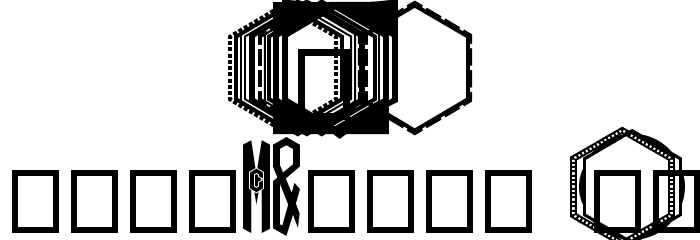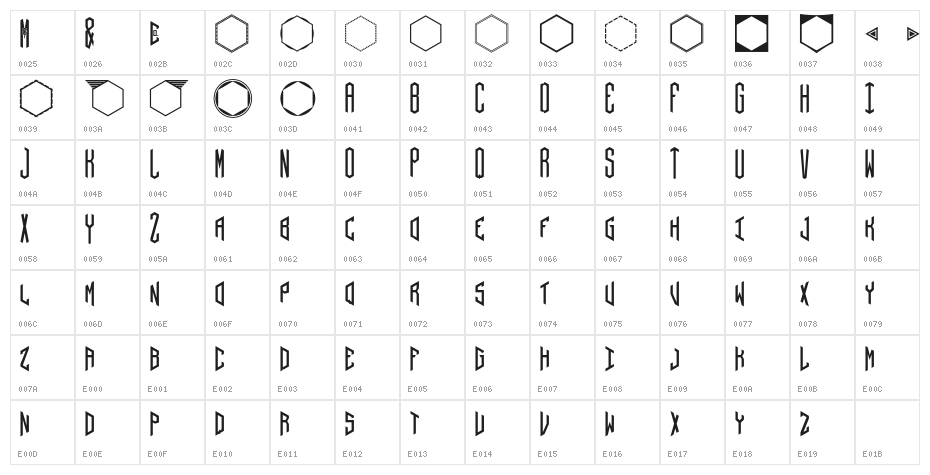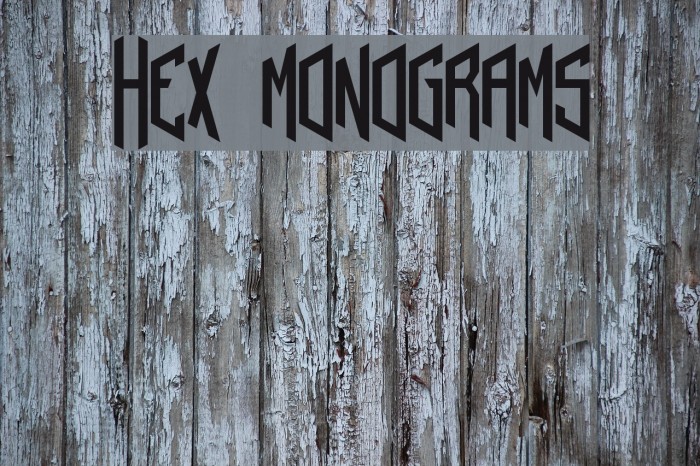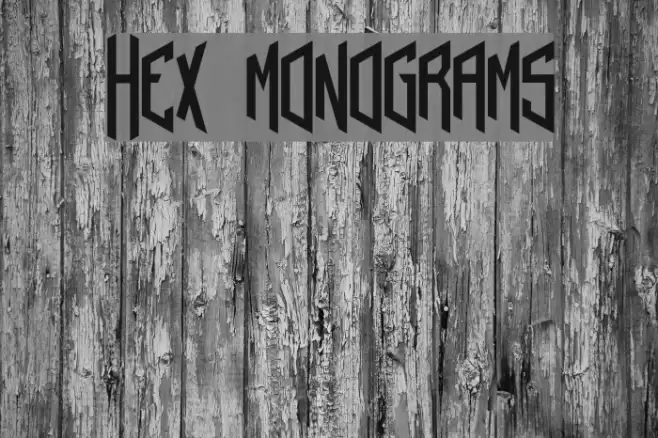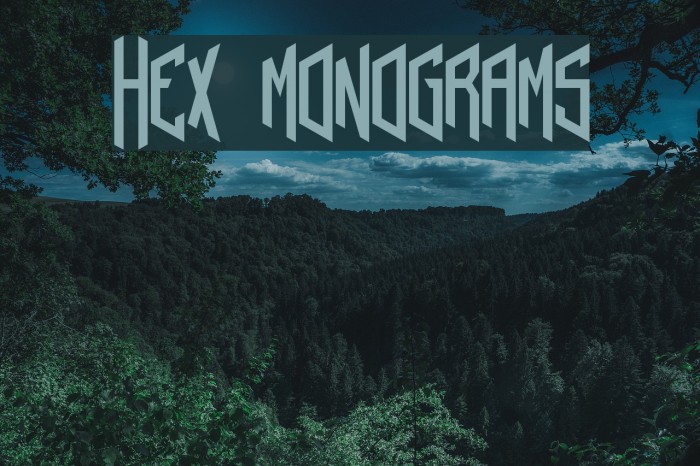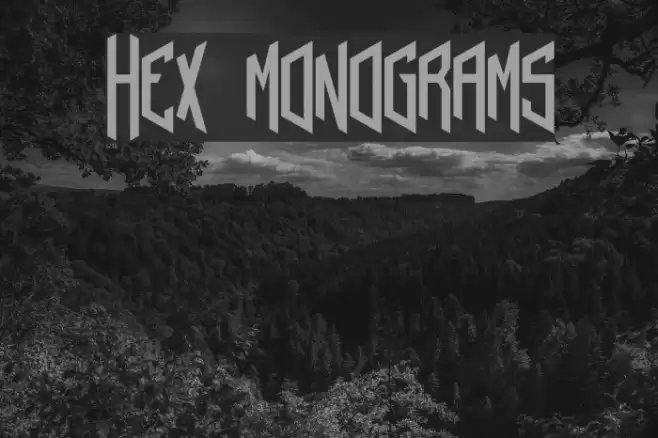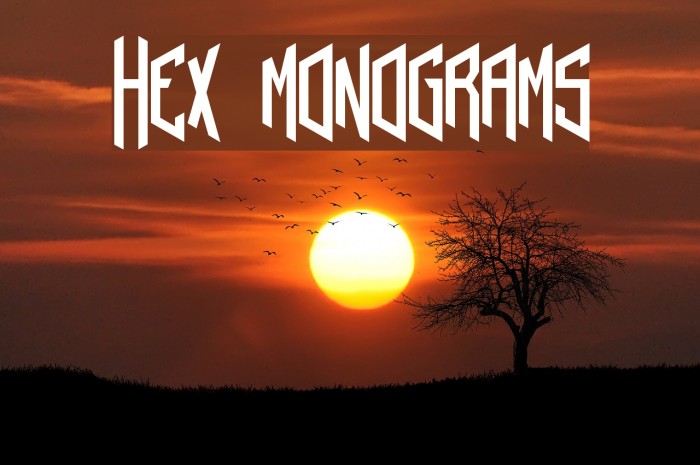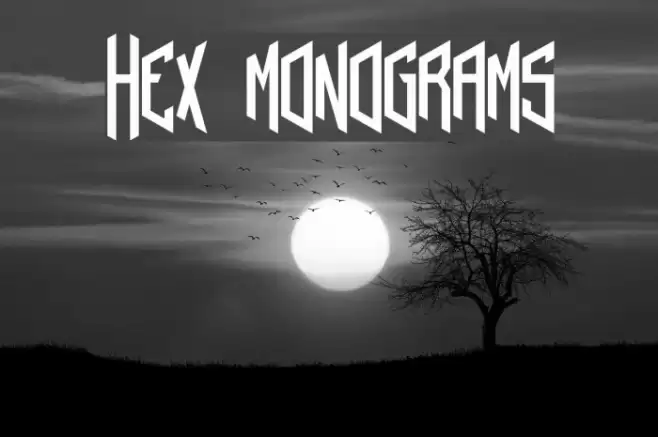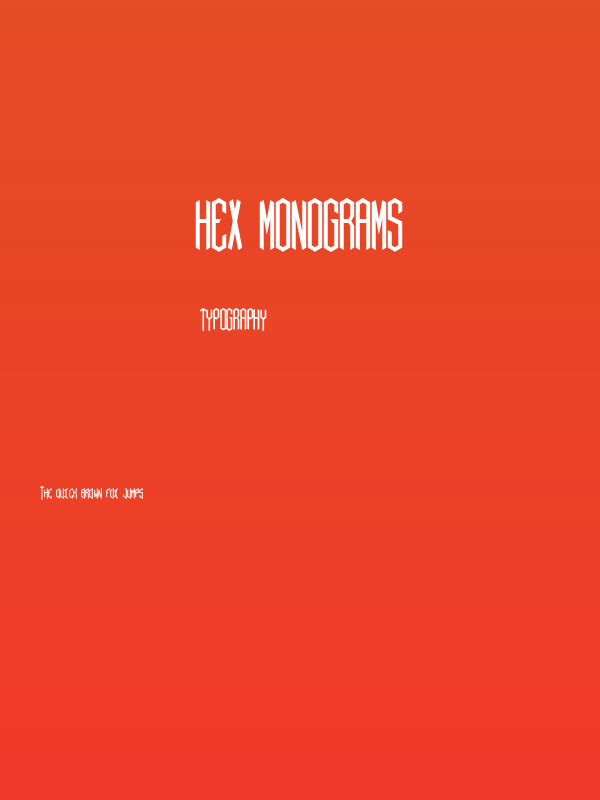
Hex monograms Font
Hex monograms Description
This font features a distinctive geometric style with sharp, angular lines and a hexagonal motif. The uppercase letters are elongated and narrow, creating a striking and modern appearance. The absence of lowercase letters and numbers suggests a focus on decorative and monogram applications. The design incorporates a unique hexagonal frame around certain letters, emphasizing its suitability for branding and logo design. The overall aesthetic is bold and eye-catching, making it ideal for projects that require a strong visual impact.
| Proposed Projects | This font is perfect for creating unique monograms, logos, and branding materials. Its bold and distinctive style makes it suitable for use in fashion, technology, and modern design projects. |